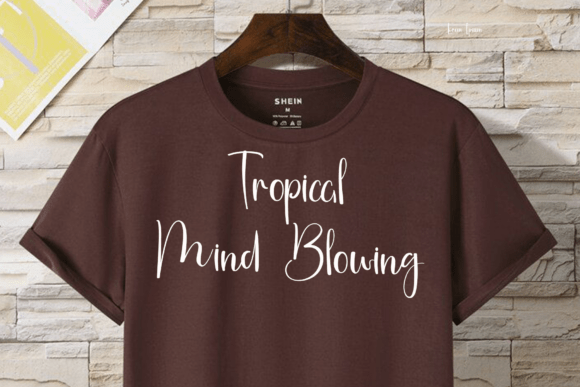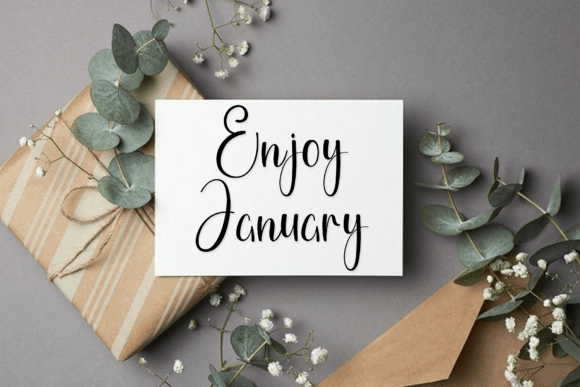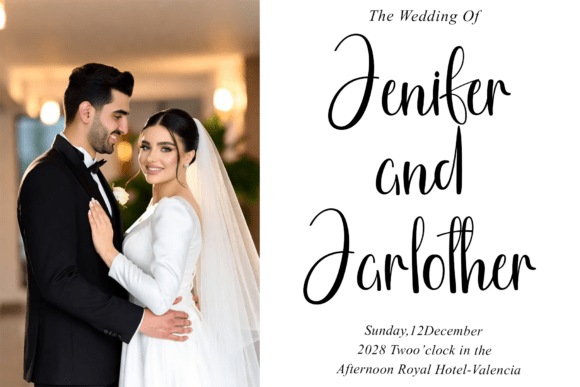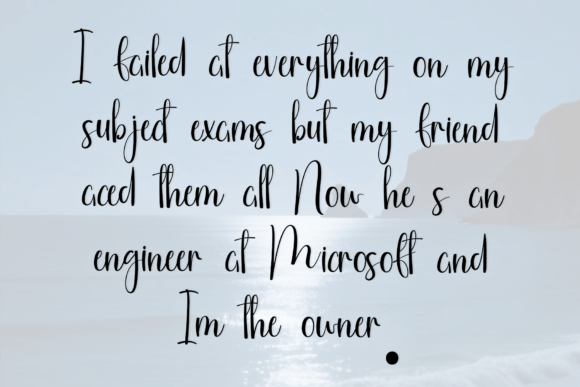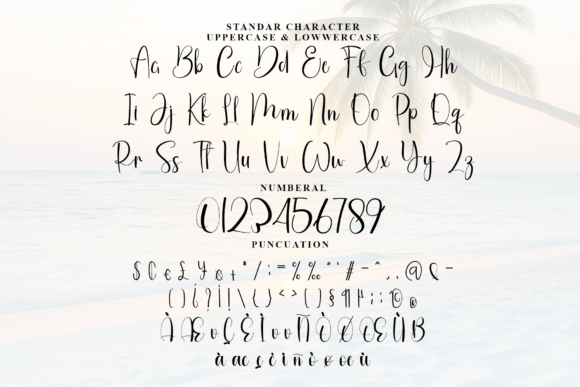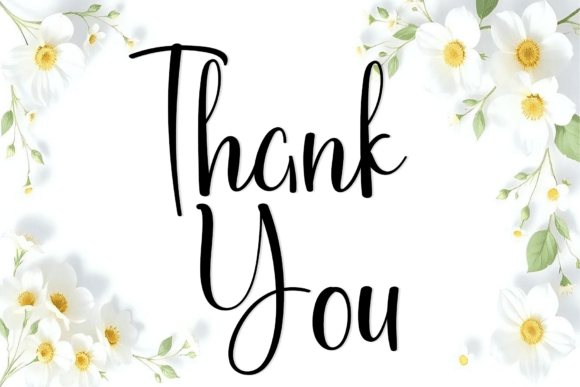
Embracing the Art of Handwritten Typography
Have you ever found yourself scribbling down ideas in a coffee shop, the sound of espresso machines and hushed conversations filling the air? It’s in these moments that creativity strikes, and the lines between reality and inspiration blur. As designers, we’re constantly seeking the perfect tools to bring our visions to life. One such tool is Actualy Font, a modern handwritten collection that embodies the essence of clarity and elegance.
Designed to evoke a sense of crisp sophistication, Actualy Font features tall, thin strokes with a subtle, airy slant. Its clean and approachable style makes it an ideal choice for designers looking to infuse their projects with a sense of refinement and poise. Whether it’s travel photography, branding for outdoor gear, or sophisticated web design, Actualy Font is a valuable addition to any designer’s toolkit.
Actualy Font Key Features
- Unique Character Set: Actualy Font features a unique character set, including a wide range of languages, including Latin, Cyrillic, Greek, and more.
- Stylistic Alternates: The font includes a variety of stylistic alternates, allowing designers to add a touch of personality to their designs.
Actualy Font Review
As a designer, I’ve had the chance to work with Actualy Font, and I must say it’s a unique addition to any digital project. ✨ The font’s hand-drawn feel gives it a personal touch that can add character to text-heavy content. It’s also great for use in branding, as it can help create a distinctive visual identity.
- ✨ Actualy Font’s organic feel can be a great way to add some texture and depth to your design.
- ✨ The font’s wide range of weights and styles makes it versatile and easy to use in various contexts.
However, there are some limitations to consider. ⚠️ The font’s irregular shapes and varying line widths can make it challenging to read at smaller sizes. Additionally, the font’s inconsistent spacing can sometimes lead to awkward-looking text arrangements.
- ⚠️ The font’s readability can suffer at smaller sizes due to its irregular shapes and varying line widths.
- ⚠️ Inconsistent spacing can lead to awkward-looking text arrangements.
Overall, I’d say Actualy Font is a great choice for designers looking to add some personality to their projects. While it may not be the best choice for body text, it’s perfect for use in headings, titles, or any other context where a unique, hand-drawn feel is desired.
Tips for Getting the Most Out of Actualy Font
Actualy Font is a versatile font that can be used for a variety of purposes. Here are a few tips for getting the most out of it:
– Use Actualy Font for titles and headings to add a touch of elegance to your design.
– Experiment with different font sizes and styles to create a unique look.
– Use Actualy Font in combination with other fonts to create a visually appealing contrast.
Actualy Font is commonly used for:
– Designing invitations and event materials
– Creating business cards and marketing materials
– Developing logos and branding materials
– Adding a touch of elegance to presentations and documents